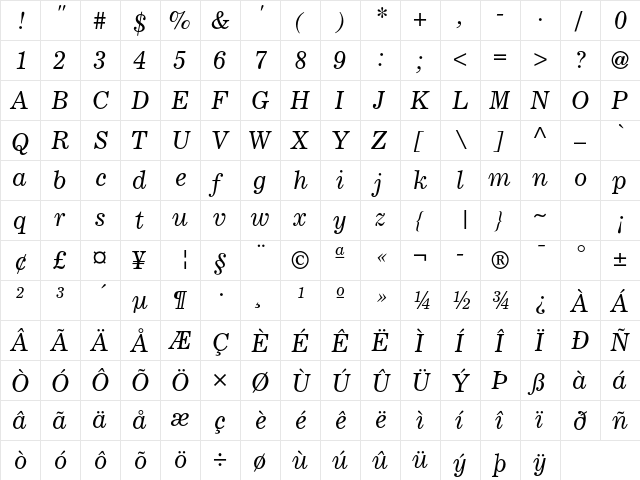
Corona LT Std Italic Font Preview
| Designer | Chauncey H. Griffith |
Design Context for Corona LT Std Typeface
Corona LT Std is a composed and adaptable typeface that performs quietly and consistently across a wide range of design contexts. The dynamic lean of this cut emphasises speed and emphasis in any layout. Its slender proportions lend an understated elegance to any composition.
Pro Tip: Try Corona LT Std for annotation and caption copy alongside an upright companion — the contrast in angle creates a dynamic but ordered typographic system.